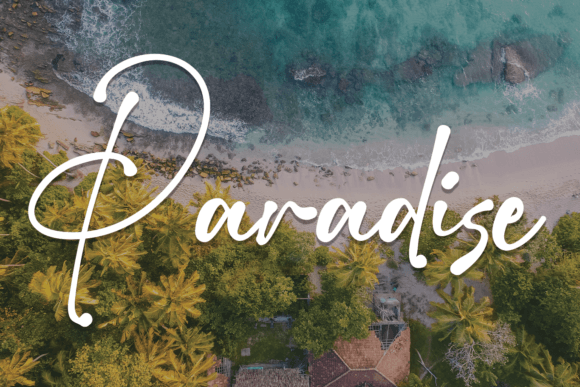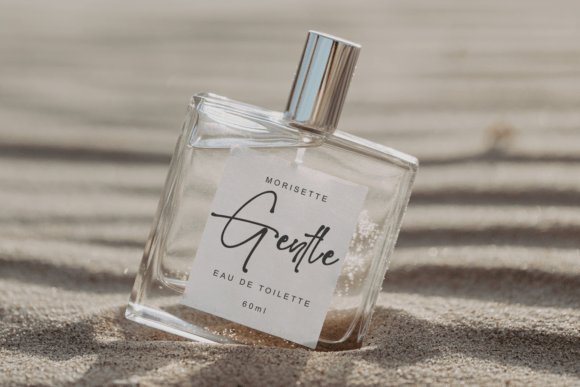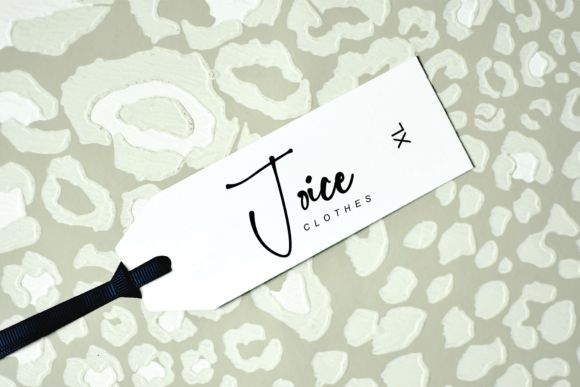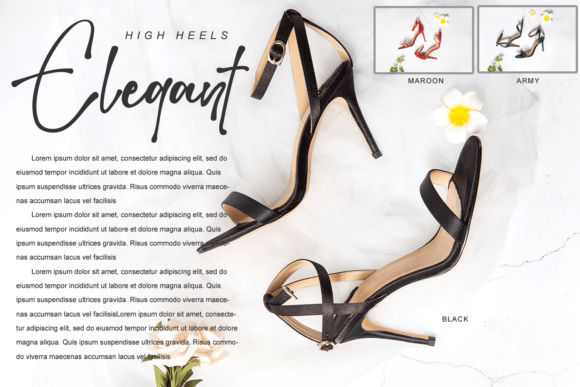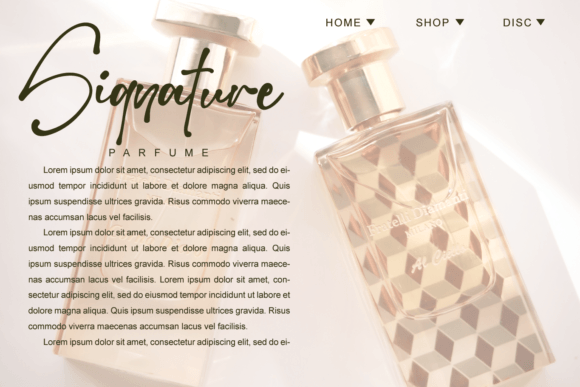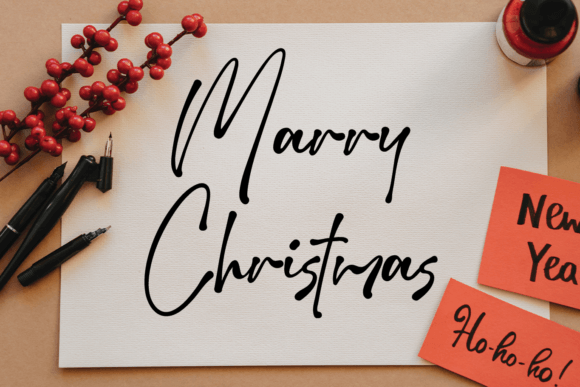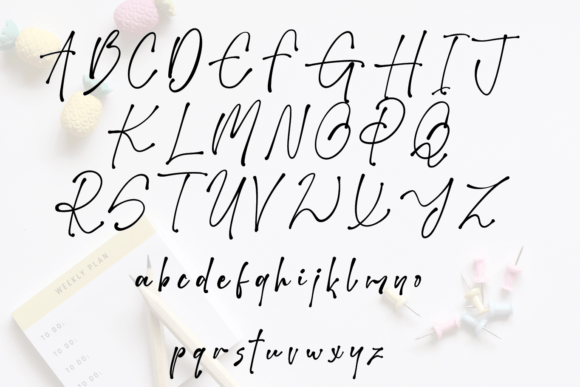
Paradise Font
Discover the Elegance of Paradise Handwritten Font
The Paradise Handwritten Font is a beautifully crafted typeface that blends classical calligraphic influences with modern handwriting flair. Designed with precision and elegance, this font is perfect for creatives who want to add a touch of sophistication and personality to their work.
Whether you’re crafting a high-end brand, planning an elegant event, or designing romantic invitations, Paradise offers the charm and visual harmony your project needs.
Perfect for Logos, Invitations, and Stylish Branding
Paradise shines across a variety of design applications. It’s especially well-suited for logo designs, wedding invitations, quote graphics, and personal branding. The font’s delicate curves and fluid strokes evoke a sense of grace, making every word feel meaningful and refined.
Additionally, this typeface complements thank-you cards, business cards, and product packaging, where elegance and clarity are key. Whether you’re working on print or digital, Paradise enhances your content with its exquisite handwritten touch.
Timeless Calligraphy Meets a Fresh Aesthetic
What makes the Paradise Font truly special is its ability to balance classic elegance with a modern twist. It draws inspiration from traditional calligraphy but removes the rigidity, resulting in a flowing, accessible typeface with a stylish personality.
Its consistent stroke width, combined with well-balanced characters, gives it a clean and harmonious appearance—making it perfect for everything from minimalist designs to luxurious brand identities.
Designed for Both Print and Digital Projects
Whether you’re preparing printed invitations or digital social media graphics, Paradise performs beautifully in all formats. It scales well from small text sizes to large headers, retaining its legibility and visual charm throughout.
Pair it with a clean serif or sans-serif font to highlight contrast and improve readability. This technique is especially effective in professional presentations and editorial designs.
Why Designers Choose Paradise Handwritten Font
Paradise has become a favorite among designers thanks to its:
• Elegant and modern handwritten style
• Versatility for branding, stationery, and quotes
• Excellent readability in both digital and print media
• Calligraphic inspiration with a contemporary look
• Unique ability to elevate any design with grace
Add a Touch of Class with Paradise
In summary, the Paradise Handwritten Font is a stunning choice for anyone seeking a refined, expressive, and versatile typeface. Its graceful strokes and modern flair make it the ideal font for stylish invitations, high-end branding, and heartfelt messages.
Let Paradise transform your next project into something truly unforgettable.